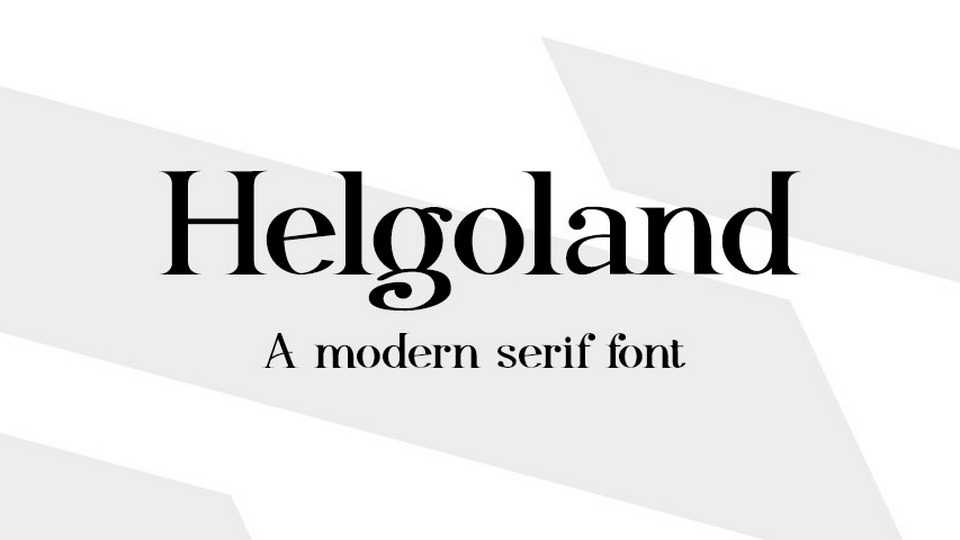
Download Helgoland font, a modern serif display typeface, suitable for everything ranging from shop windows to posters. Helgoland has over 250 different glyphs, and should cover most Latin languages.